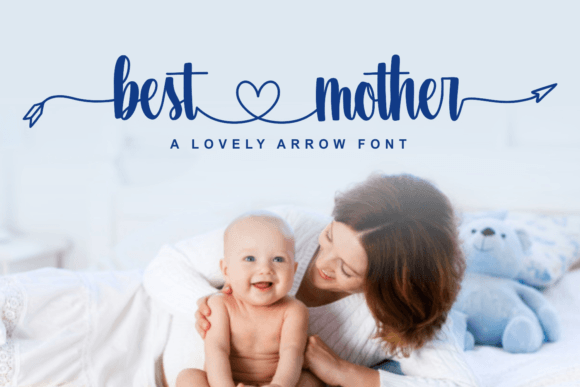
The Quest for the Perfect Motherly Love Font
I still remember the design project that made me fall in love with the Best Mother font. I was working on a wedding invitation for a close friend, and I wanted a font that would capture the elegance and romance of the occasion. After hours of scouring through font libraries and trying out different combinations, I stumbled upon Best Mother. Its beautiful script letters and love-themed arrow swashes instantly caught my attention. I knew right then and there that this font was the one.
An Honest Review of Best Mother
- ✨ Elegant and flowing script letters that add a touch of sophistication to any design
- ✅ Love-themed arrow swashes that add a romantic touch
- 💫 Character changes that give the font a dynamic and unique feel
- 👍 Suitable for a variety of design projects, from wedding invitations to business cards
- 🤔 May require some experimentation to get the hang of using OpenType features and glyphs
- ⚠️ Not suitable for body text or long paragraphs, as it’s best used for headlines and titles
The Designer Inspiration Behind Best Mother
The Best Mother font was designed with love and care by a talented typographer who’s passionate about creating beautiful and elegant fonts. The designer’s inspiration came from traditional calligraphy and modern script fonts, with a focus on creating a unique and romantic feel. The result is a font that’s both elegant and playful, perfect for designers and crafters who want to add a touch of sophistication to their projects.
Q: What is the Best Mother font?
A: Best Mother is a beautiful script font with love-themed arrow swashes, perfect for wedding invitations, thank you cards, and other design projects that require a handwritten touch.
Q: Is Best Mother easy to read?
A: Best Mother is a script font that’s designed to be elegant and flowing, but it may not be suitable for long paragraphs or body text. It’s best used for headlines and titles.